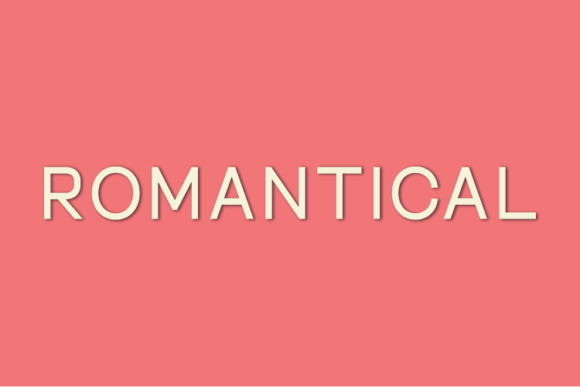
How Romantical Transformed My Bakery’s Brand Into Something Timeless
When I decided to refresh my small bakery’s packaging and social media look, I knew the logo and color palette were important—but I didn’t expect a font change to make such a dramatic difference. That’s when I discovered Romantical, a modern, classy sans serif typeface that gave my brand a clean, elegant visual upgrade without feeling too stiff or overdesigned.
Choosing Romantical for Packaging and Product Labels
As a small business owner, consistency across packaging, labels, and digital assets is key. Romantical helped me unify everything from bakery boxes to thank-you cards. The uppercase characters are crisp and balanced, making them ideal for short phrases like “Vanilla Bean Scone” or “Chocolate Croissant.” The font’s clean lines and open spacing ensured that text remained legible even on small labels or printed at a smaller size.
How Romantical Elevates Social Media Branding
When I redesigned my Instagram templates, I wanted something that felt polished but still approachable. Romantical, as a sans serif font, offered the perfect middle ground between modern and warm. I used it in carousel headers, quote graphics, and story highlights. It paired beautifully with softer background colors and minimalist layouts, helping my bakery’s feed feel more intentional and visually cohesive.
Designing a Café Menu with Romantical
Menus are one of the first things customers interact with, so clarity and visual appeal matter. I used Romantical for the menu titles and special offerings at our small café counter. Its modern sans serif style made the menu feel fresh and contemporary, while still being easy to read under different lighting conditions. I found that using it in bold for headings and a lighter weight for descriptions created a nice visual hierarchy without overwhelming the eye.
Using Romantical for Business Cards and Thank-You Notes
In a world where digital interactions dominate, physical touches like business cards and handwritten notes stand out. I updated my stationery suite using Romantical for both the front and back of the cards. The font’s elegant structure gave the cards a boutique feel, while the inclusion of numbers and punctuation allowed me to cleanly include phone numbers, website URLs, and social media handles.
Pairing Romantical with Other Fonts for Visual Depth
One of the best things about Romantical is how well it pairs with other typefaces. For example, I combined it with a soft script font for event signage at our seasonal pop-up bakery events. For digital use, I paired it with a clean sans serif for body text, letting Romantical shine in headlines and banners. These font combinations helped guide the viewer’s eye and created a layered yet consistent brand voice.
Why Romantical Works for Branding and Logo Design
When I rebranded my bakery’s logo, I wanted something that felt timeless but not outdated. Romantical’s modern sans serif structure gave the logo a refined edge that felt both approachable and professional. It’s especially effective for logos that need to be scalable—whether printed on a tiny sticker or blown up for a storefront sign. The font’s versatility made it a natural fit for a small business logo that needed to work across many platforms and materials.
Readability Tips When Using Romantical
While Romantical is a highly readable font, I learned that spacing and size matter—especially on mobile screens or small packaging. I made sure to test the font at different sizes and in different formats before finalizing any print runs or digital assets. On social media thumbnails, I used slightly larger text to ensure legibility at a glance. For printed labels, I checked that the uppercase letters had enough contrast against the background color to remain easy to read.
Final Touches: Making Every Design Feel Purposeful
Switching to Romantical wasn’t just about changing a font—it was about refining my brand’s visual voice. From packaging to digital marketing, every touchpoint now feels more intentional and cohesive. Whether you're a candle seller, a boutique owner, or someone building an online shop, choosing the right font like Romantical can be one of the most impactful—and affordable—ways to elevate your brand visuals and connect more authentically with your audience.